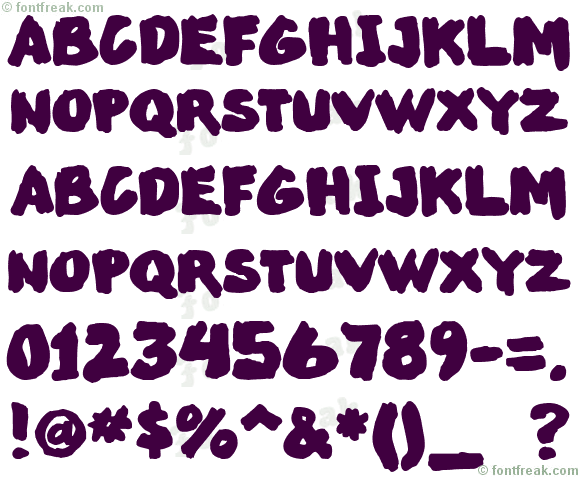
MarkedUp
About MarkedUp
MarkedUp, designed by Stanley Roland Frantz in 1999, is a unique display font that captures attention with its bold and defaced aesthetic. This freeware font stands out within the realm of decorative typefaces, ideal for creative projects that seek to convey personality and flair. The visual characteristics of MarkedUp include a heavy stroke weight with an uneven, hand-drawn quality that evokes a sense of spontaneity and artistic freedom. The irregularity in its letterforms and spacing adds to its charm, making it a versatile choice for various applications.
The MarkedUp font excels in several specific use cases. It is perfect for eye-catching movie posters that require a dramatic flair, as the boldness of the type can enhance visual storytelling. Additionally, it shines in restaurant menus, where its unique style can set the tone for a casual or trendy dining experience. Wedding invitations benefit from its distinctive touch, providing a contemporary twist to traditional designs. Furthermore, it is an excellent choice for branding materials and social media graphics, where grabbing attention is crucial.
Targeting graphic designers, small business owners, and content creators, MarkedUp appeals to those who want to express individuality in their projects. Its distinctive style allows users to break away from conventional fonts and inject creativity into their work.
What truly makes the MarkedUp font stand out is its ability to combine fun and boldness with artistic expression. This font captures the essence of creativity, making it an essential tool for anyone looking to make a statement. With its free download option, designers can easily incorporate this striking typeface into their projects, ensuring their work remains memorable and impactful.